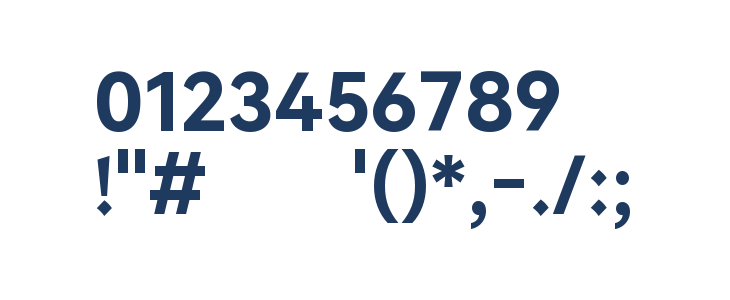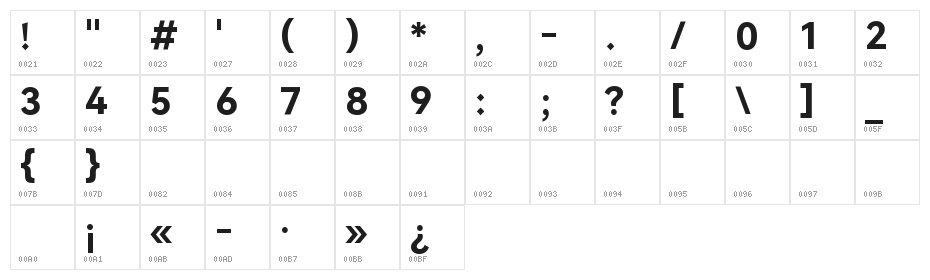
HarmonyOS Sans Naskh Arabic Bold Font
HarmonyOS Sans Naskh Arabic Bold Description
This font exhibits a bold and modern style, characterized by its clean and straightforward design. The characters are well-defined with a consistent stroke weight, providing a strong visual impact. The numerals and special characters maintain the same boldness, ensuring uniformity across different text elements. The font's simplicity and clarity make it suitable for a wide range of applications, from digital interfaces to print media. Its design is optimized for readability, with each character distinct and easily recognizable, making it ideal for both headlines and body text.